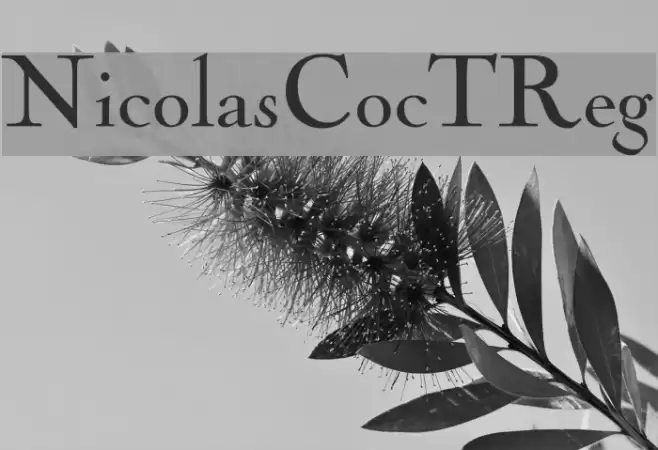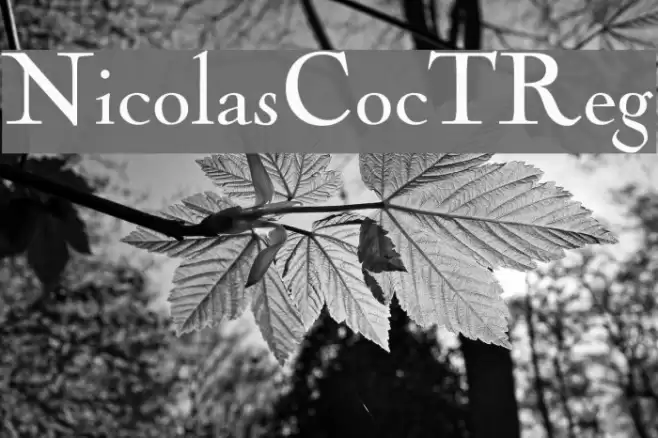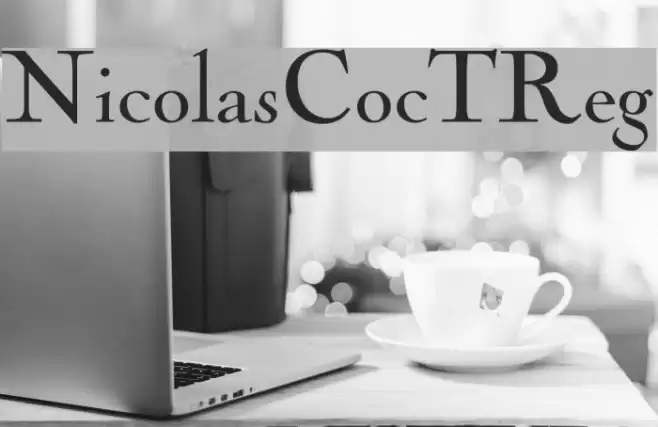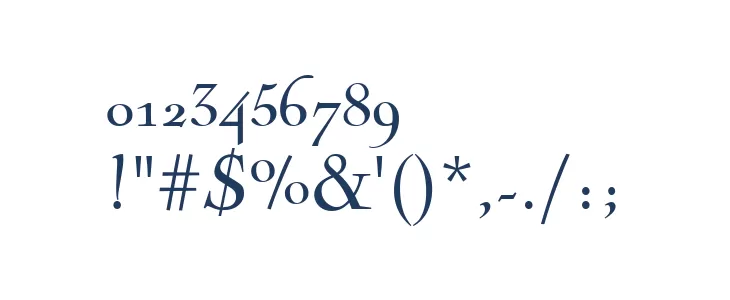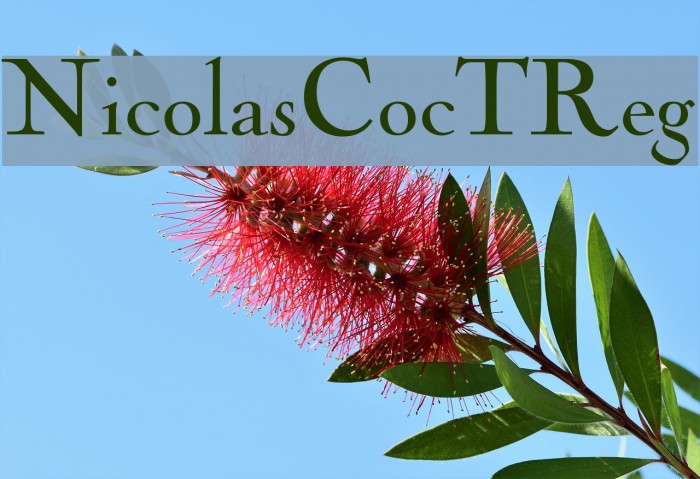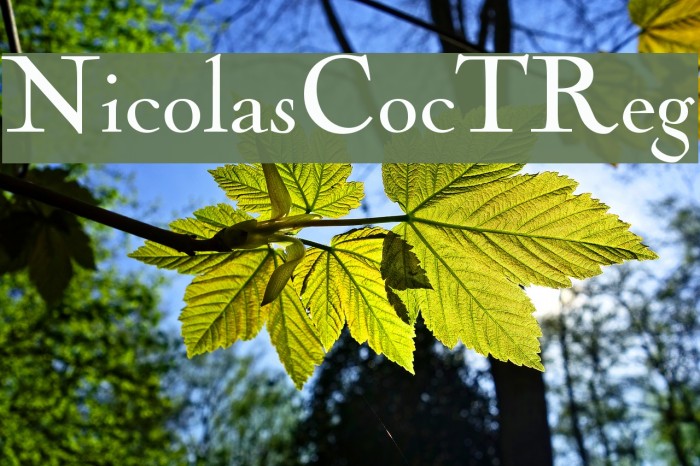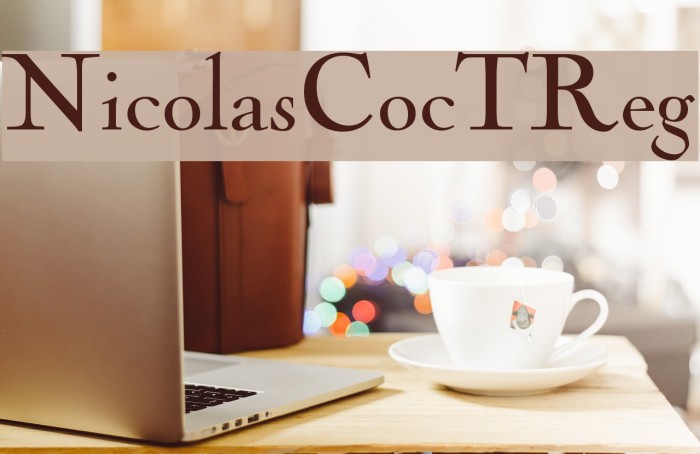
NicolasCocTReg
This font exhibits a classic serif style with elegant and refined strokes. The uppercase letters are bold and commanding, featuring sharp serifs that add a touch of sophistication. The lowercase letters maintain a consistent style, with smooth curves and a balanced weight that ensures readability. Numbers are distinct and well-proportioned, complementing the overall aesthetic. The special characters are crafted with precision, maintaining the font's cohesive look. This font is ideal for projects that require a traditional yet stylish appearance.
A classic serif font with elegant strokes and sharp serifs from Typewriter fonts.
- Proposed Projects: Ideal for book covers, formal invitations, branding, and editorial design.
- Overall Style: Classic